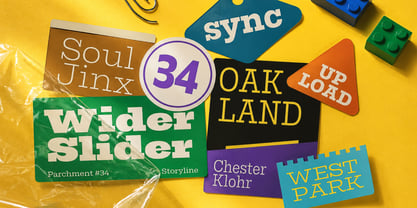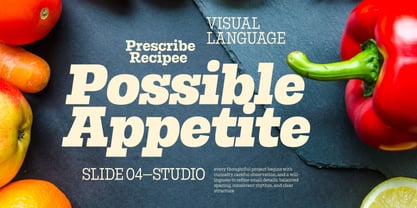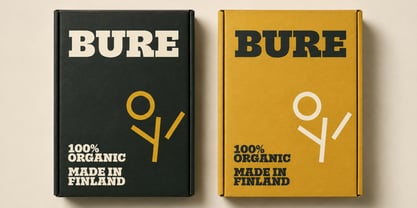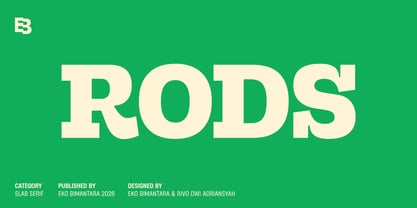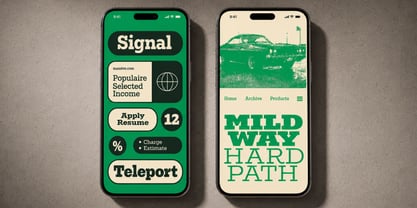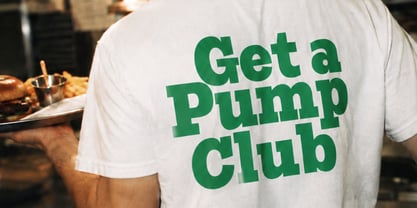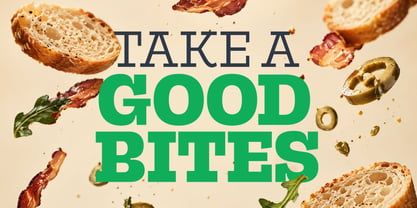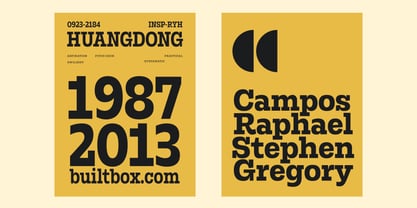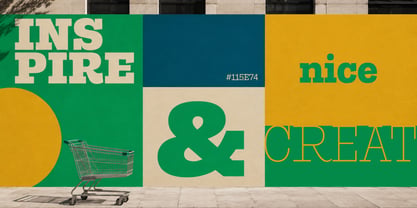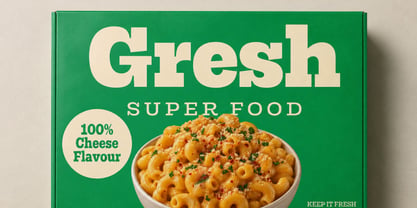
Rods
by Eko Bimantara
Rods is a versatile slab serif font family that balances strong, bold forms with distinctive details and a contemporary character. Designed across an extensive range of 72 styles, it offers broad flexibility in both weight and width, from Thin to Black and Condensed to Wide, making it suitable for everything from expressive display typography to structured layouts. Its alternate characters and OpenType features provide additional ways to shape its personality, while the wide range of styles makes Rods a practical choice for branding, editorial design, packaging, advertising, websites, and other creative applications that call for a confident and distinctive typographic presence.
Designers: Eko Bimantara, Rivo Dwi Adriansyah
Foundry: Eko Bimantara
Eko Bimantara is a type designer from Indonesia. Always has an intention to creating fonts that not only look great but also perform across a wide range of mediums and also across wide range of theme. The goal is to give designers the tools to make their projects that speaks a lot with various expression. Eko Bimantara’s fonts are featured in everything from corporate identities to street art posters, and have numerous ideas and concept ready to expand for fresh fonts for years further.